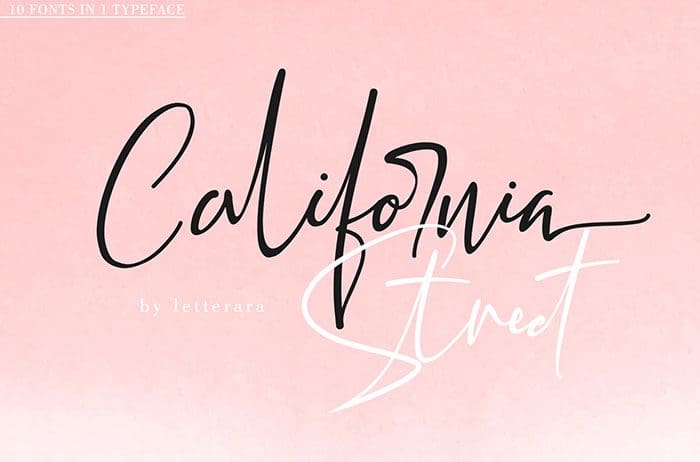
Callifornia Street Handwritten Font
Callifornia Street handwritten font. It’s sweet, innocent, light and charming, this one-of-a-kind typeface will add a unique charm to any design project! Callifornia Street font was created to look as close to a natural handwritten script as possible by including  64 ligatures. With built-in Open type features, this script comes to life as if you are writing it yourself. You can see it in the picture shown. and most importantly, Callifornia Street is perfect for you. Created this font by Thomas Aradea. You can also search more free Fonts. Thanks!